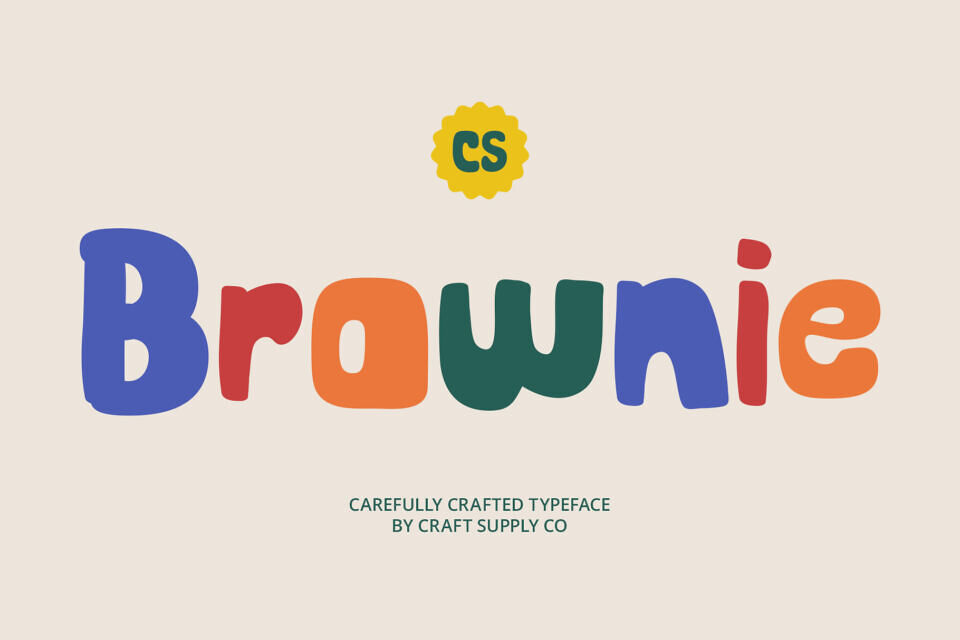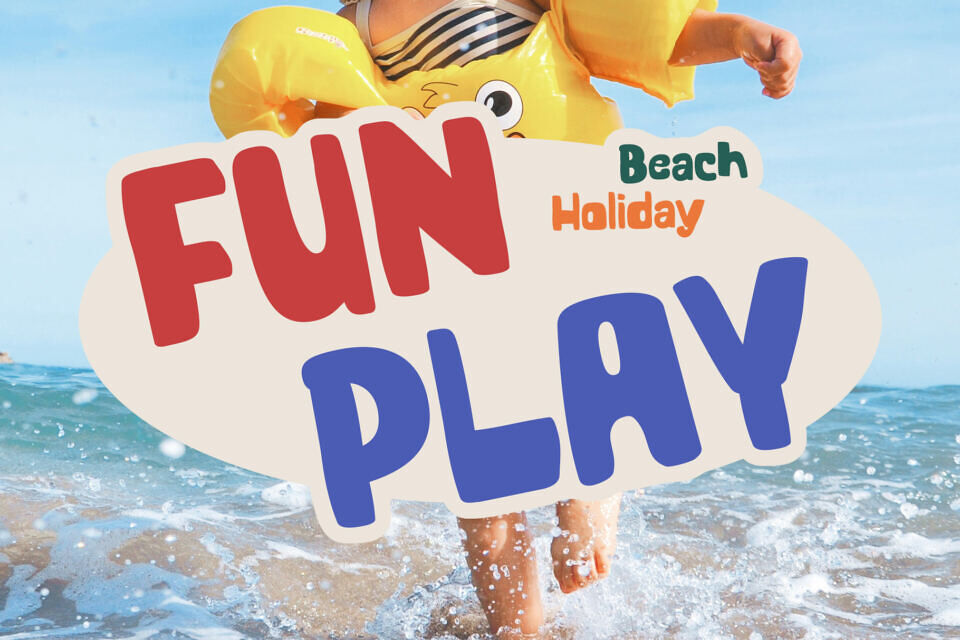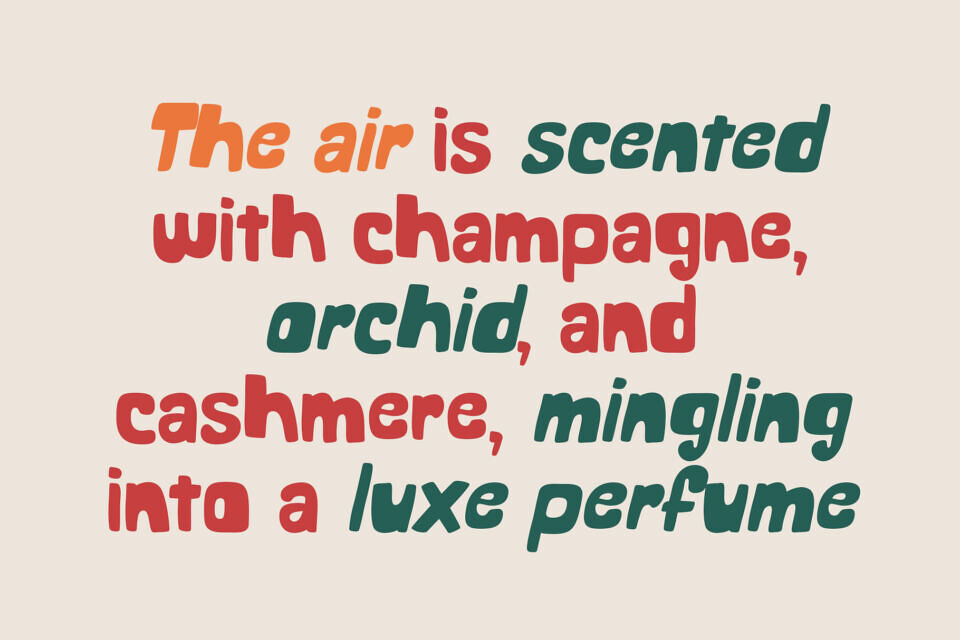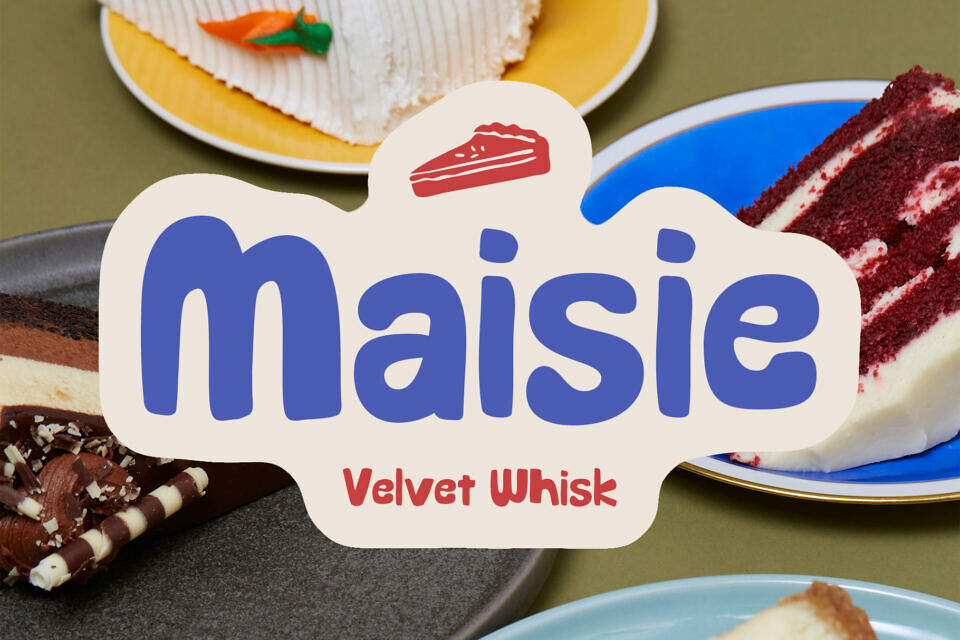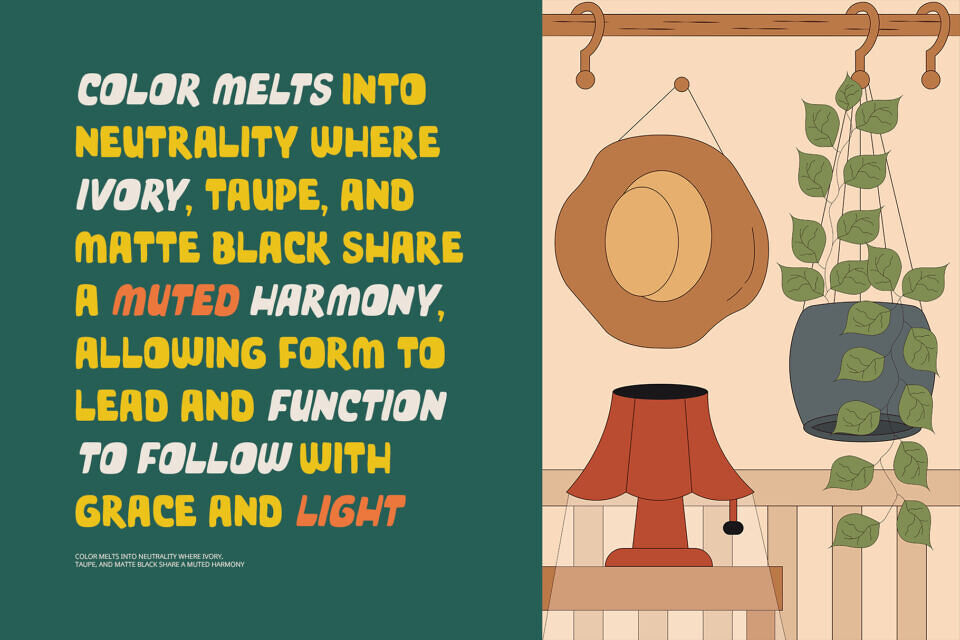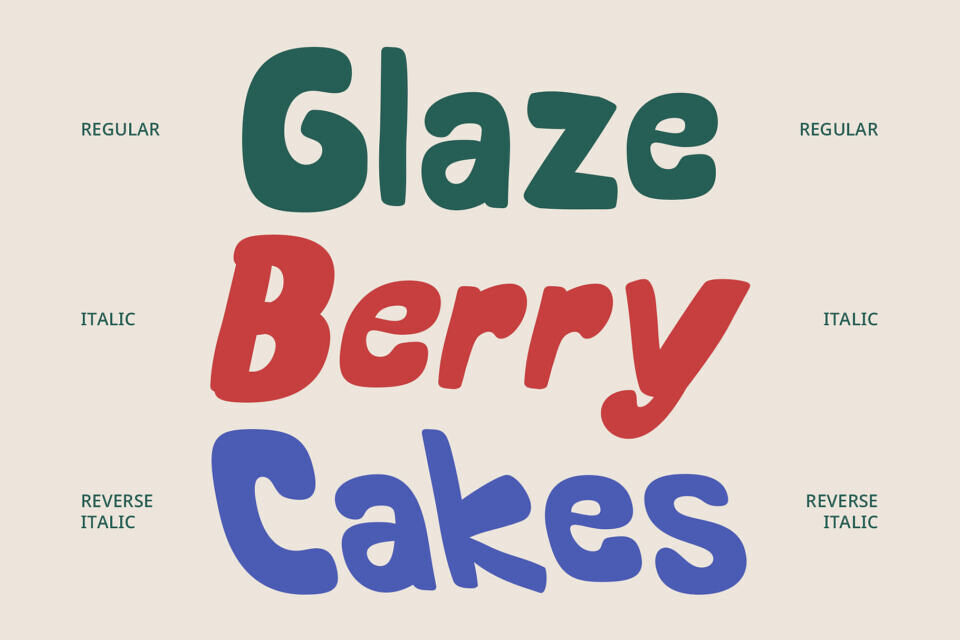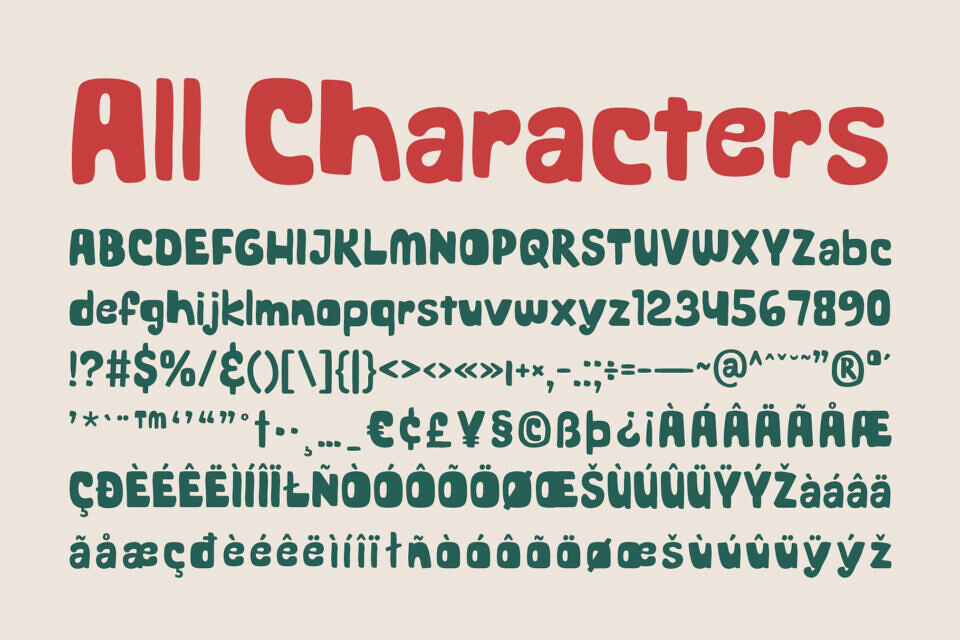
CS Brownie is a bold, modern display font bursting with charm and whimsy. Its clean, expressive letterforms, with rounded edges and imaginative curves, exude a funky, cheerful vibe that captures attention and spreads joy.
Perfect for youthful, energetic designs, CS Brownie shines in storybook titles, toy packaging, classroom posters, birthday invitations, and kids’ apparel branding. Its soft shapes and playful rhythm evoke comfort, creativity, and motion, making every letter feel lively and engaging.
Rooted in visual play, this font transforms typography into a delightful, approachable experience, inspiring laughter, curiosity, and storytelling. CS Brownie doesn’t just communicate—it smiles.